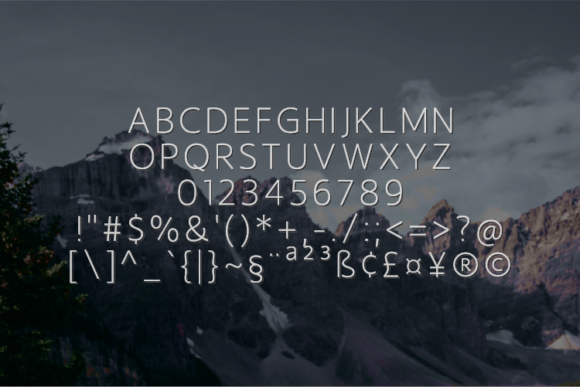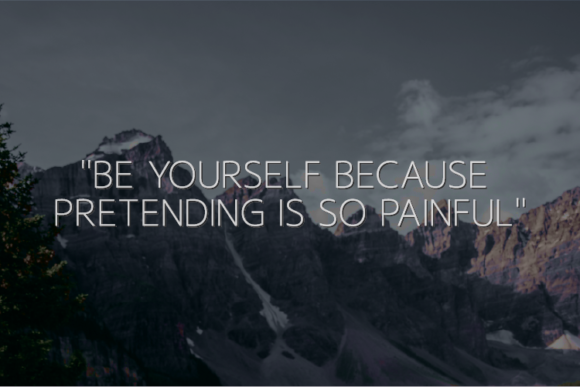
Frozler Font: Elevate Your Designs with a Simple yet Striking Sans Serif Font
In the world of typography, fonts play a crucial role in conveying messages, evoking emotions, and setting the tone for a brand or design. For designers and crafters, finding the perfect font can be a daunting task, especially when working on a project that requires a unique and eye-catching touch. This is where the Frozler Font comes in – a simple and thin lettered sans serif font that can effortlessly elevate your creative ideas and make them stand out.
What is Frozler Font?
Frozler Font is a modern sans serif font that boasts a clean and minimalist design. Its thin lettering gives it a sleek and sophisticated look, making it perfect for designs that require a touch of elegance and refinement. The font’s simplicity ensures that it can be paired with a wide range of projects, from branding and advertising to packaging and digital media.
Key Features of Frozler Font
- Simple and Thin Lettering: Frozler Font features a thin and simple lettering style that gives it a unique and modern look.
- Sans Serif Design: The font’s sans serif design makes it perfect for designs that require a clean and minimalist look.
- Highly Versatile: Frozler Font can be used in a wide range of projects, from print to digital media.
- Easily Readable: The font’s clear and simple design ensures that it is easily readable, even at small sizes.
How to Use Frozler Font in Your Designs
Frozler Font can be used in a variety of design projects, including:
- Branding and Logo Design: Use Frozler Font to create a unique and memorable logo for your brand.
- Advertising and Marketing: The font’s clean and modern design makes it perfect for use in advertising and marketing materials.
- Packaging Design: Add a touch of elegance to your packaging designs with Frozler Font.
- Digital Media: Use Frozler Font in your digital media projects, such as website designs, social media graphics, and more.
Benefits of Using Frozler Font
There are several benefits to using Frozler Font in your designs, including:
- Unique and Eye-Catching: Frozler Font’s simple and thin lettering style makes it stand out from other fonts.
- Highly Versatile: The font can be used in a wide range of projects and designs.
- Easily Readable: Frozler Font is clear and easy to read, even at small sizes.
- Time-Saving: The font’s simplicity and versatility can save you time and effort in your design process.
Tips for Pairing Frozler Font with Other Design Elements
To get the most out of Frozler Font, here are some tips for pairing it with other design elements:
- Use with Bold Colors: Pair Frozler Font with bold and bright colors to create a striking contrast.
- Combine with Images: Use Frozler Font in combination with images to add a touch of elegance and sophistication.
- Mix with Other Fonts: Experiment with pairing Frozler Font with other fonts to create a unique and eye-catching look.
Frozler Font is a simple yet striking sans serif font that can elevate your designs and make them stand out. Its thin lettering style and clean design make it perfect for a wide range of projects, from branding and advertising to packaging and digital media. With its high versatility, readability, and unique look, Frozler Font is a great addition to any designer’s toolkit.